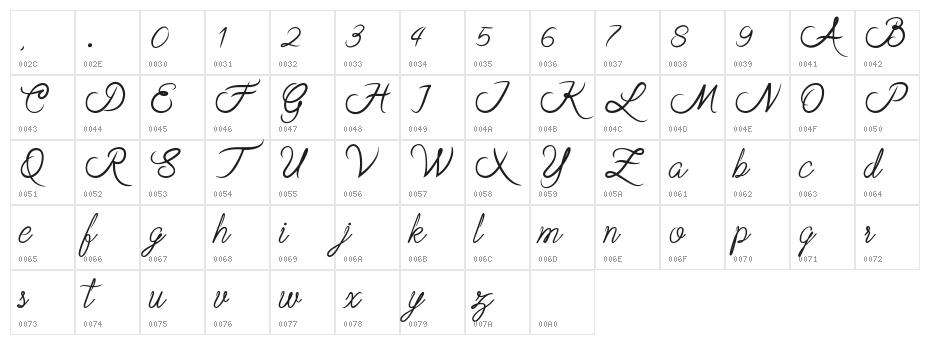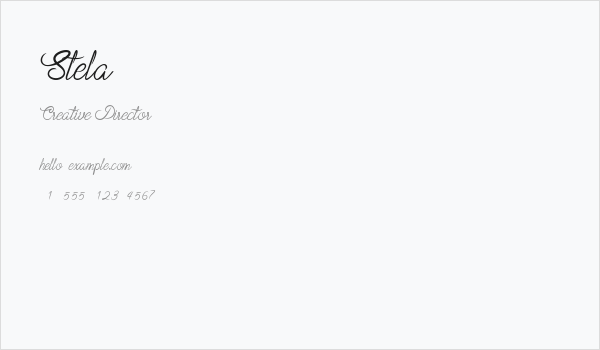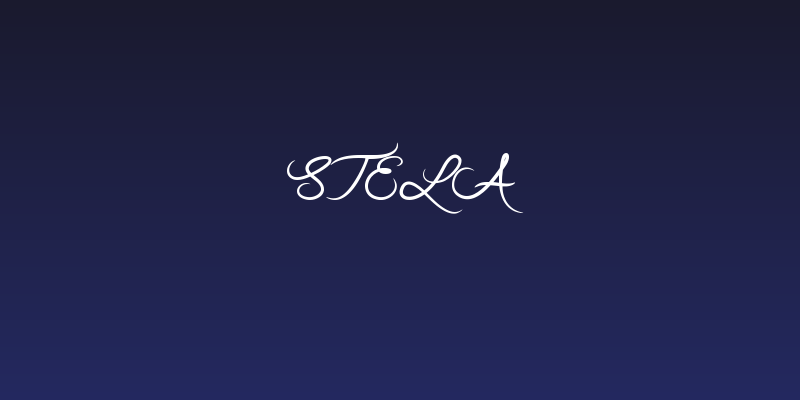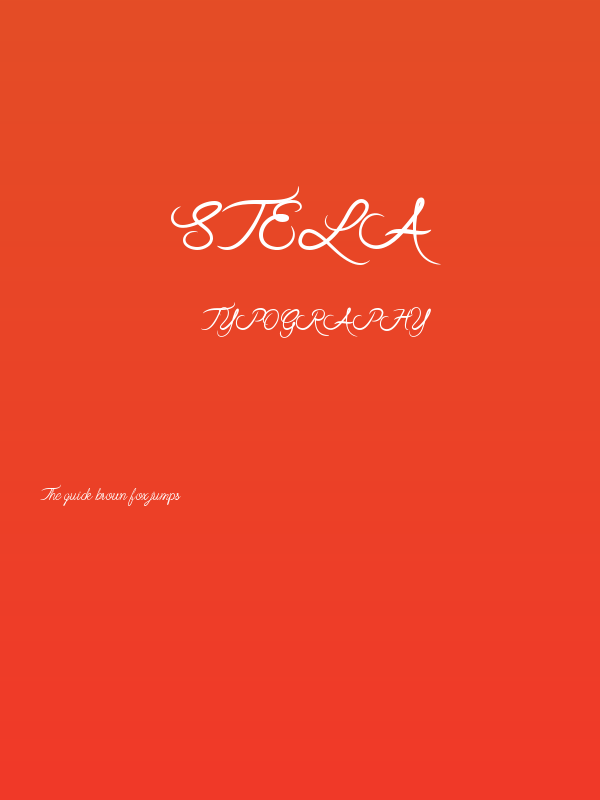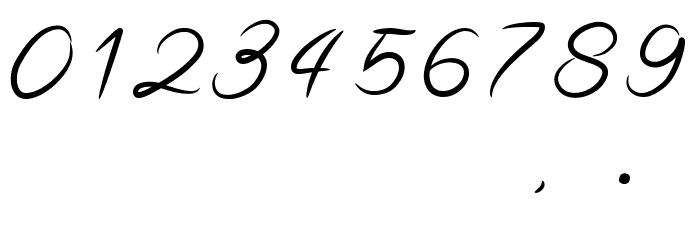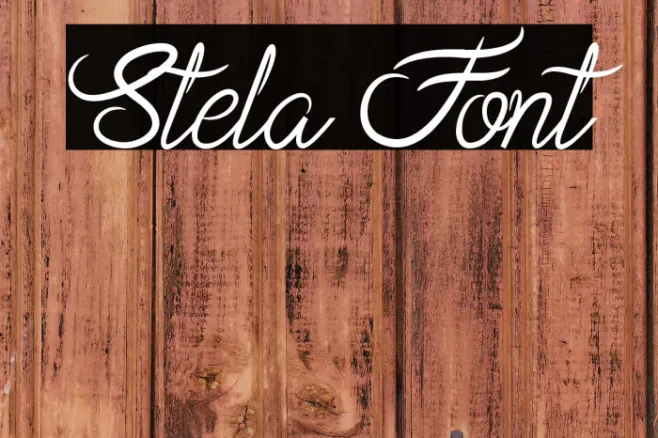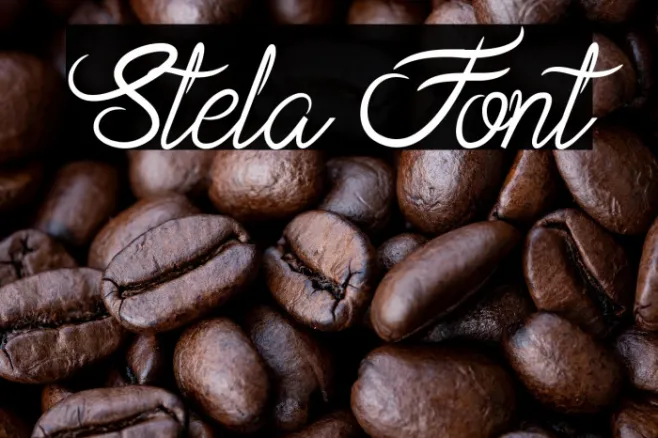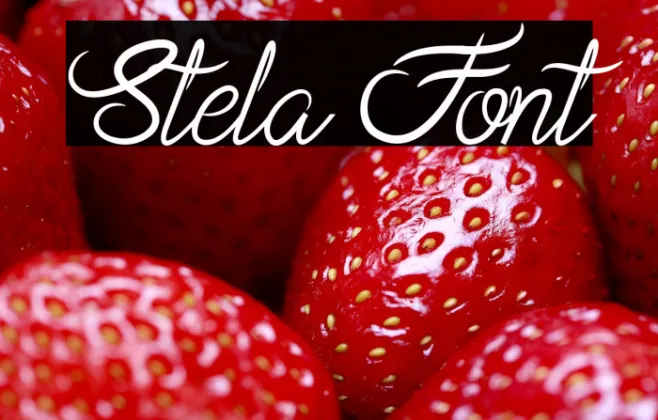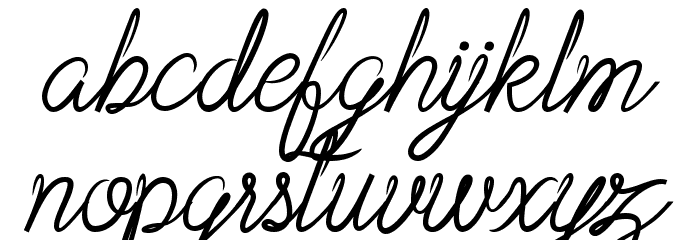
Stela Font
Stela Description
This elegant script font features fluid, cursive strokes that create a sense of movement and grace. The uppercase letters are ornate, with sweeping lines and flourishes that add a touch of sophistication. The lowercase letters maintain a consistent flow, with smooth connections between characters, enhancing readability while preserving the decorative style. The numerals are designed to complement the letters, with similar curves and a slightly playful touch. This font is ideal for projects that require a personal, handwritten feel, such as invitations, greeting cards, or branding materials.
| Proposed Projects | Ideal for wedding invitations, greeting cards, personal branding, and elegant packaging. |